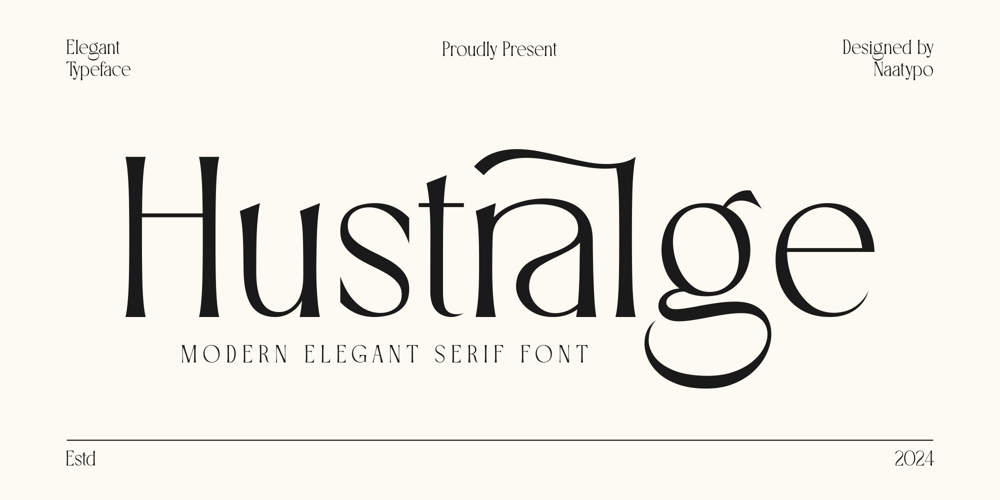
Hustralge Font Family was designed by Kurnia Elis Setyorini and published by Naatypo. Hustralge contains 1 styles and family package options. Invoke an intimate, personalized touch in your designs with the Hustralge font! This meticulously hand-drawn font breathes life into your creative pieces, making them both endearing and unforgettable. Its adaptable qualities make it a perfect match to join forces with other typefaces, enabling your design work to truly stand out. Hustralge’s versatility allows it to effortlessly complement your visual storytelling, regardless of your project scope.